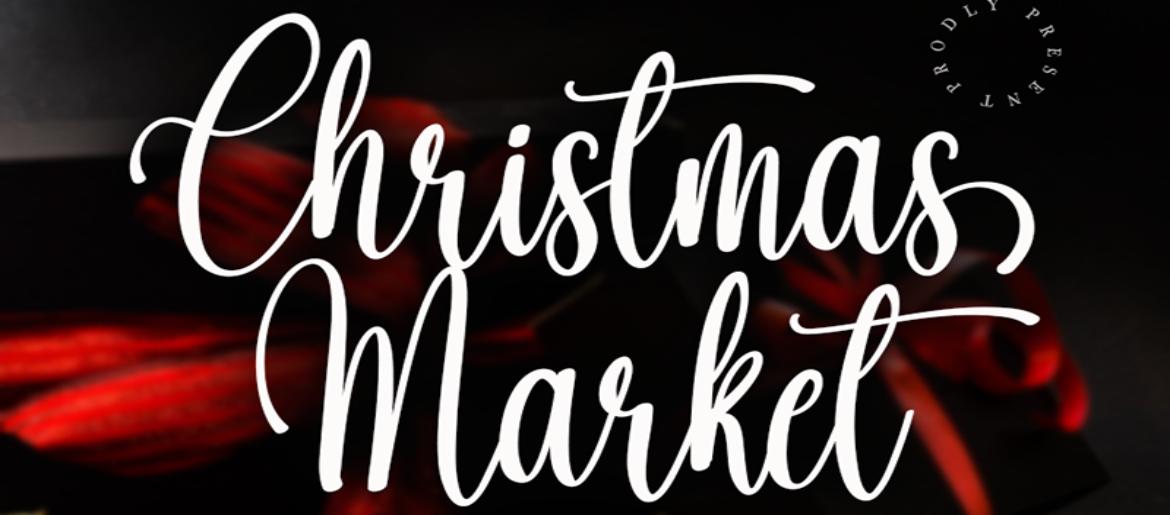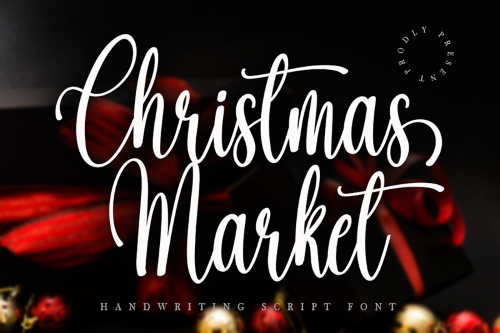
Christmas Market Font
Christmas Market font
Christmas Market Font blends elegant calligraphic influences with a modern, fresh feel. Its versatile style makes it ideal for letterheads, titles, stationery, invitations, and creative branding. Refined yet approachable, it brings a timeless, festive charm to designs while inspiring a wide range of polished and imaginative ideas.
Font Name:  Christmas Market
Designer: Creatype Designer
Style: Script > Handwritten